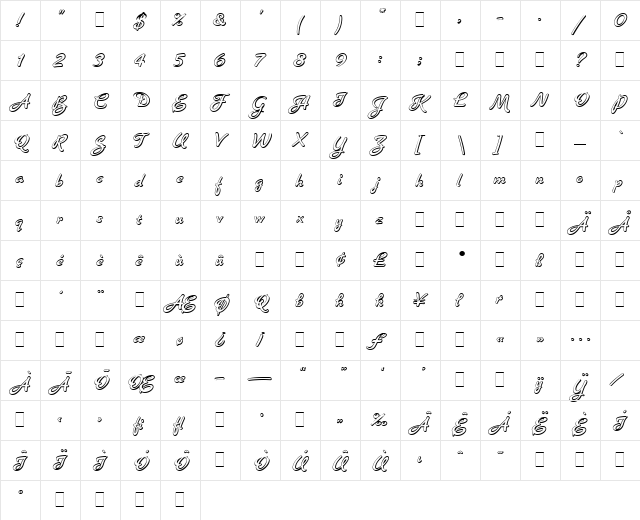
Banner Plain
Design Context for Banner Typeface
Banner is a composed and adaptable typeface that performs quietly and consistently across a wide range of design contexts.